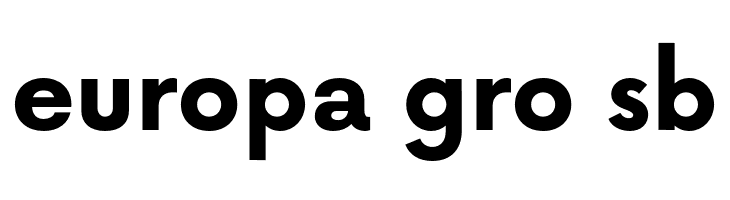
A bold, modern typeface with clean lines and geometric shapes.
A modern, geometric sans-serif font with clean lines and balanced spacing.
A modern, geometric sans-serif typeface with clean lines and uniform strokes.
A bold, modern sans-serif font with geometric lines and strong presence.
A clean, modern typeface with uniform strokes and balanced spacing.